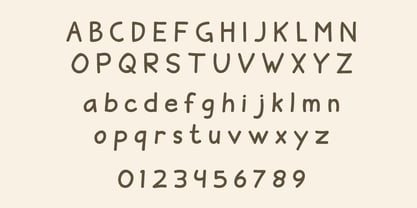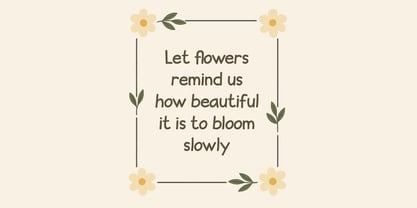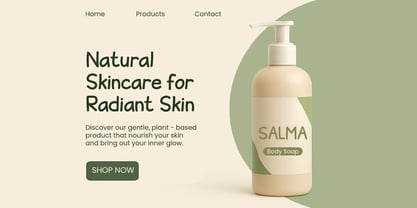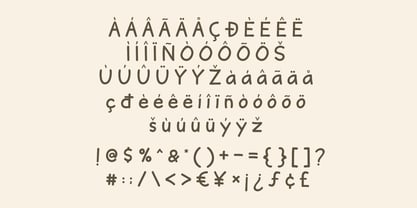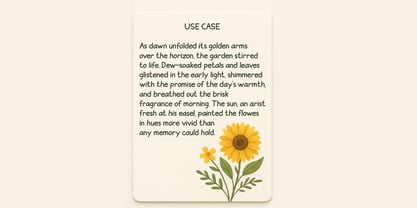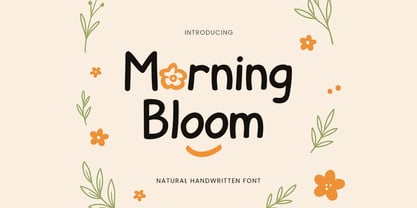
Morning Bloom
by Qiubare Studio
The Morning Bloom Font Family was designed by Michael Everson and published by Qiubare Studio. Morning Bloom contains 1 styles. More about this family
Morning Bloom is a soft handwritten typeface inspired by the calm beauty of nature and the simplicity of morning light. With smooth strokes and a friendly handwritten feel, this font brings warmth and authenticity to every design. It’s perfect for brands that want to appear gentle, organic, and emotionally connected. Designed for natural product packaging, skincare branding, poetry visuals, journals, wedding stationery, social media quotes, and botanical-themed projects, Morning Bloom makes your message feel personal and heartfelt. Its natural flow creates an effortless look, while subtle curves make typography feel cozy and approachable. Whether used in logo design, product labels, cards, or editorial layouts, Morning Bloom blossoms beautifully in minimal, aesthetic compositions. Perfect for: * Organic & skincare branding * Packaging labels & product tags * Journaling & poetry cards * Instagram quotes & social media posts * Invitations, stationery, and greeting cards * Nature-themed editorial and homepage hero sections. Features: * Uppercase & lowercase * Numbers + punctuation * Multilingual support * Smooth handwritten style
Designers: Michael Everson